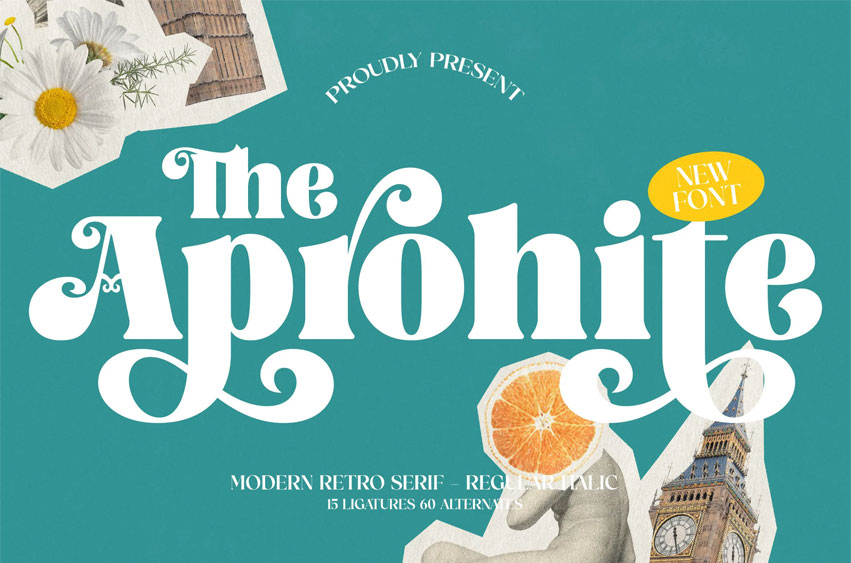
The Aprojhite Font
The Aprojhite Font is a modern retro serif font crafted with bold curves, expressive swashes, and refined vintage charm, delivering a fresh yet nostalgic identity for branding and editorial design. With 15 artistic ligatures and 60 versatile alternates, this typeface offers dynamic styling options that elevate logos, packaging, book covers, posters, social media visuals, and boutique brand identities.
Its sculpted letterforms blend playful personality with confident elegance, making The Aprojhite an eye-catching choice for designers seeking a distinctive serif that balances retro character with modern sophistication.